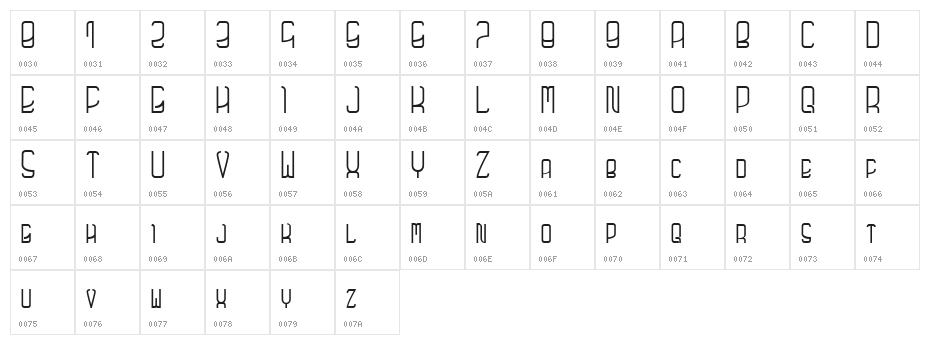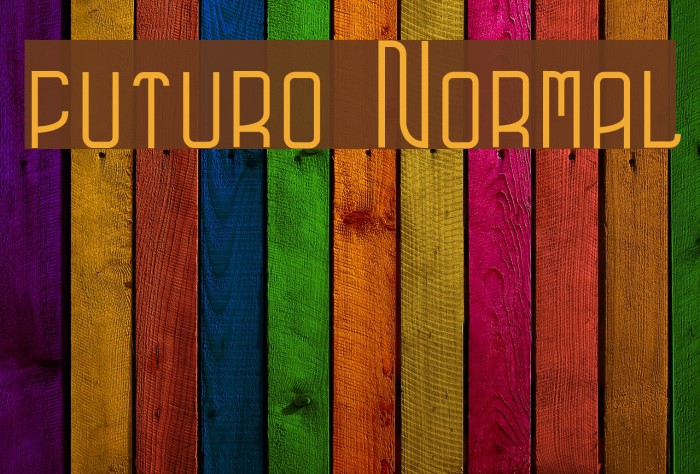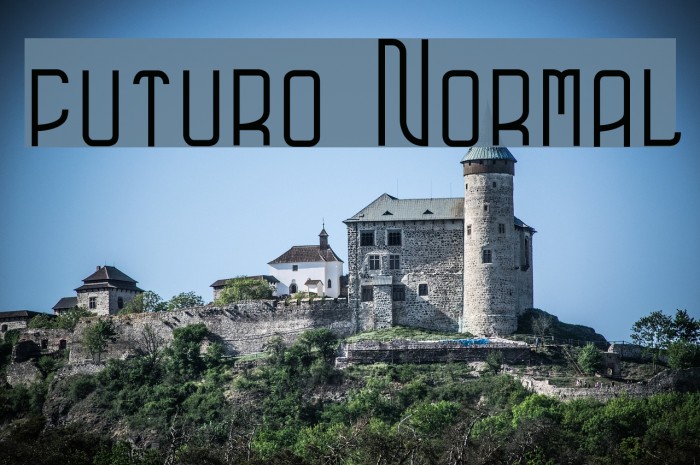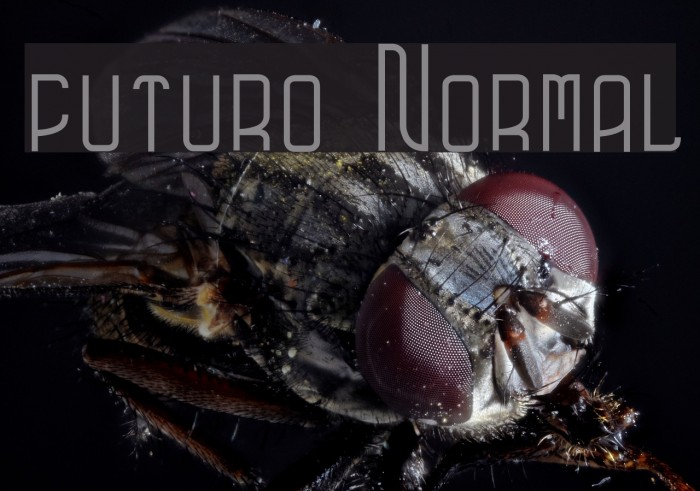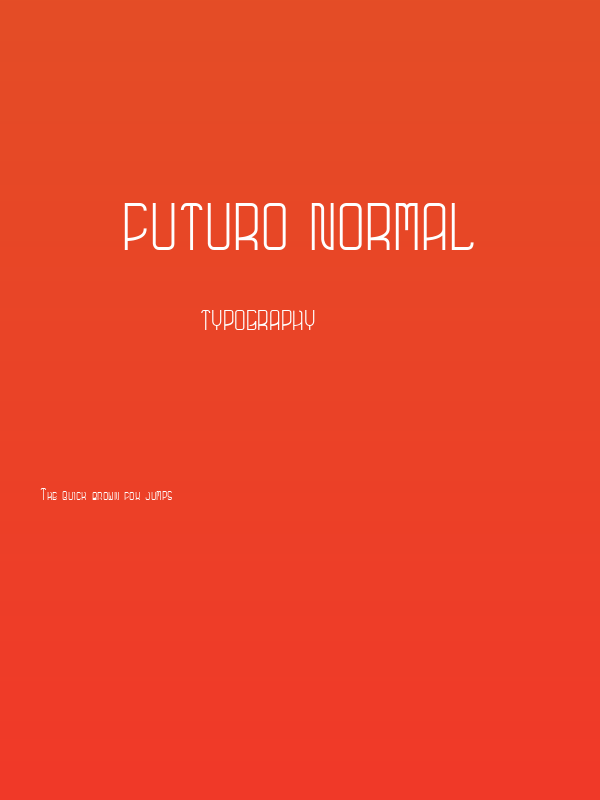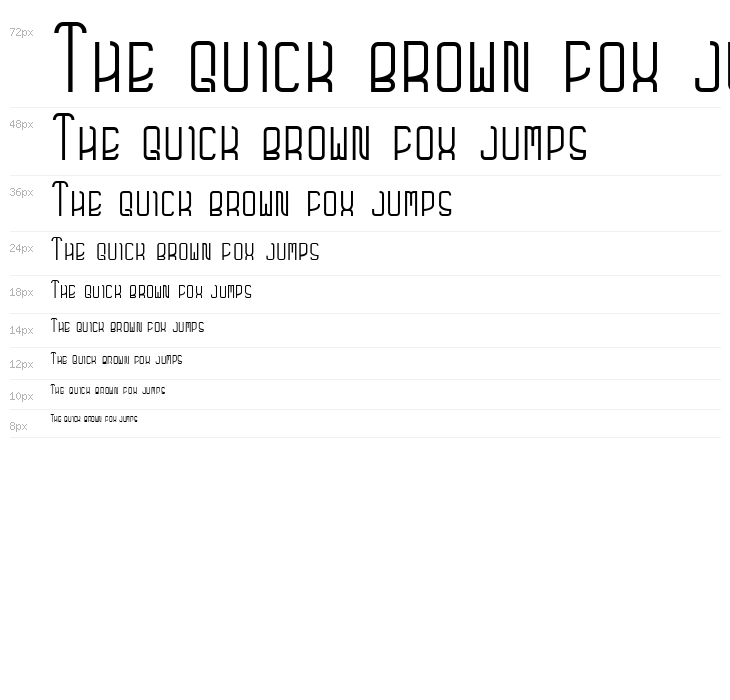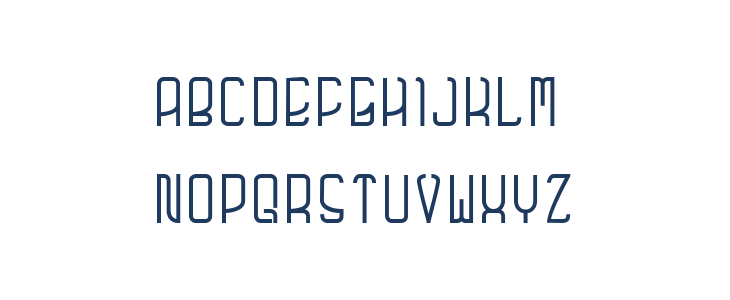
futuro Normal Font
futuro Normal Description
This font features a futuristic and geometric design with clean lines and a modern aesthetic. The characters are constructed with a consistent stroke width, giving it a uniform appearance. The uppercase letters have a distinct, angular style, while the lowercase letters maintain a similar geometric form. The numerals are designed to match the overall style, ensuring cohesion across all characters. The special characters are also crafted to fit seamlessly with the rest of the font, making it versatile for various uses.
| Use Case | Headlines, Logos, Digital interfaces |
| Proposed Projects | Ideal for technology branding, sci-fi themed projects, modern posters, and digital interfaces. |